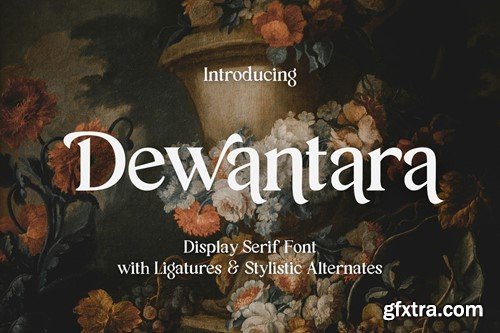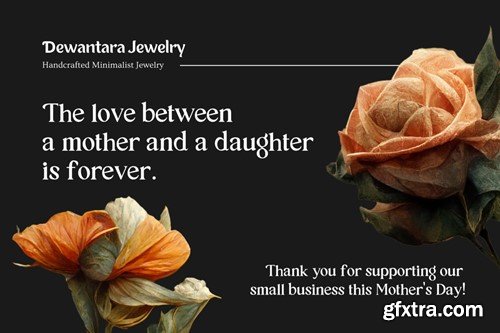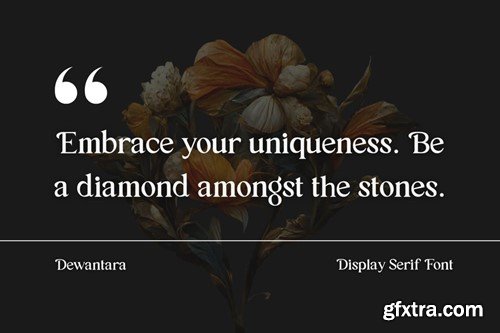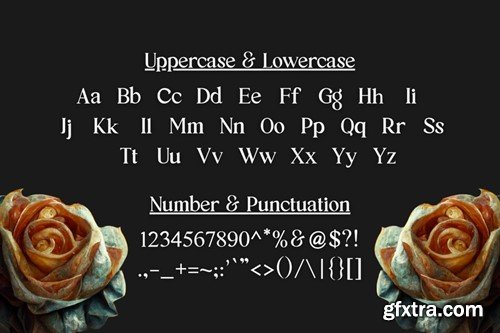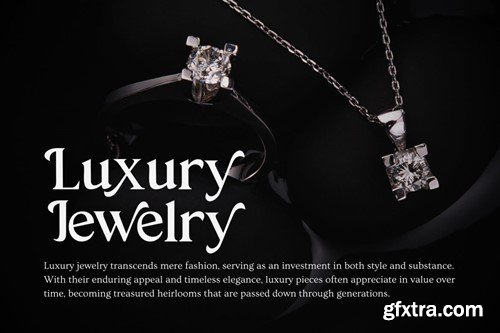
Dewantara Display Serif Font
Description Dewantara is a display serif font designed using ligatures and alternates for a modern and elegant look. Combine them to create the ideal typographic design for you. What's included? Formats : ttf / otf / woff / woff2 Thankyou